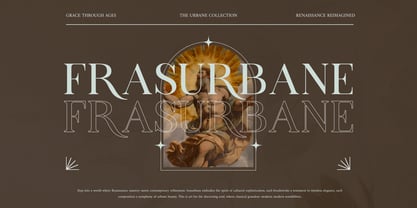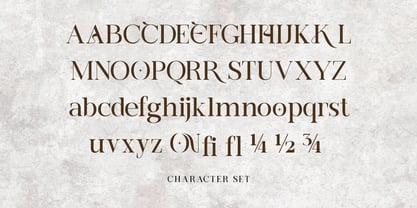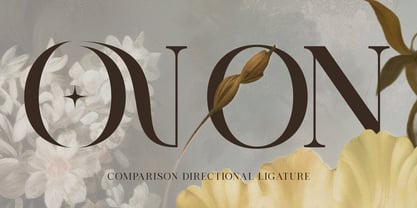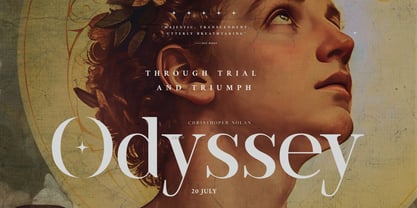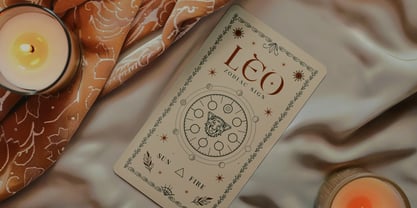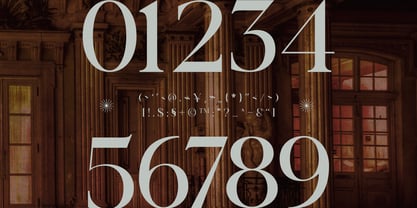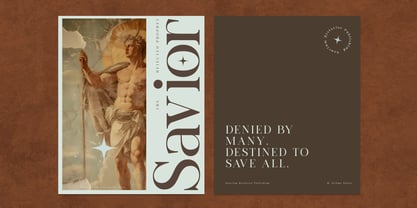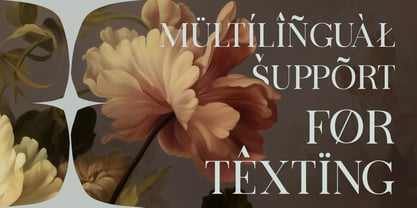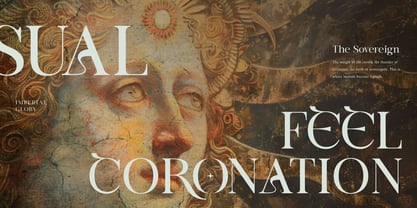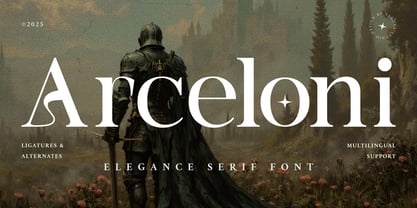
Arceloni
Arceloni is a refined serif typeface that draws inspiration from medieval elegance and fantasy aesthetics, offering a striking blend of historical charm and modern design sensibilities. With beautifully sculpted letterforms, ornamental details, and graceful curves, Arceloni delivers a luxurious and sophisticated presence in both print and digital media. This font is designed to captivate, with a unique character set that includes uppercase and lowercase letters, numerals, punctuation, stylistic alternates, and multilingual support. Whether you're crafting a magical title, a vintage-inspired logo, or an elegant packaging concept, Arceloni offers a seamless fusion of fantasy and functionality. Its ligatures and alternate glyphs provide creative flexibility, allowing designers to create compositions with richness and personality. Arceloni is more than just a font it’s a typographic experience that evokes tales of old, reimagined for today’s aesthetic standards.